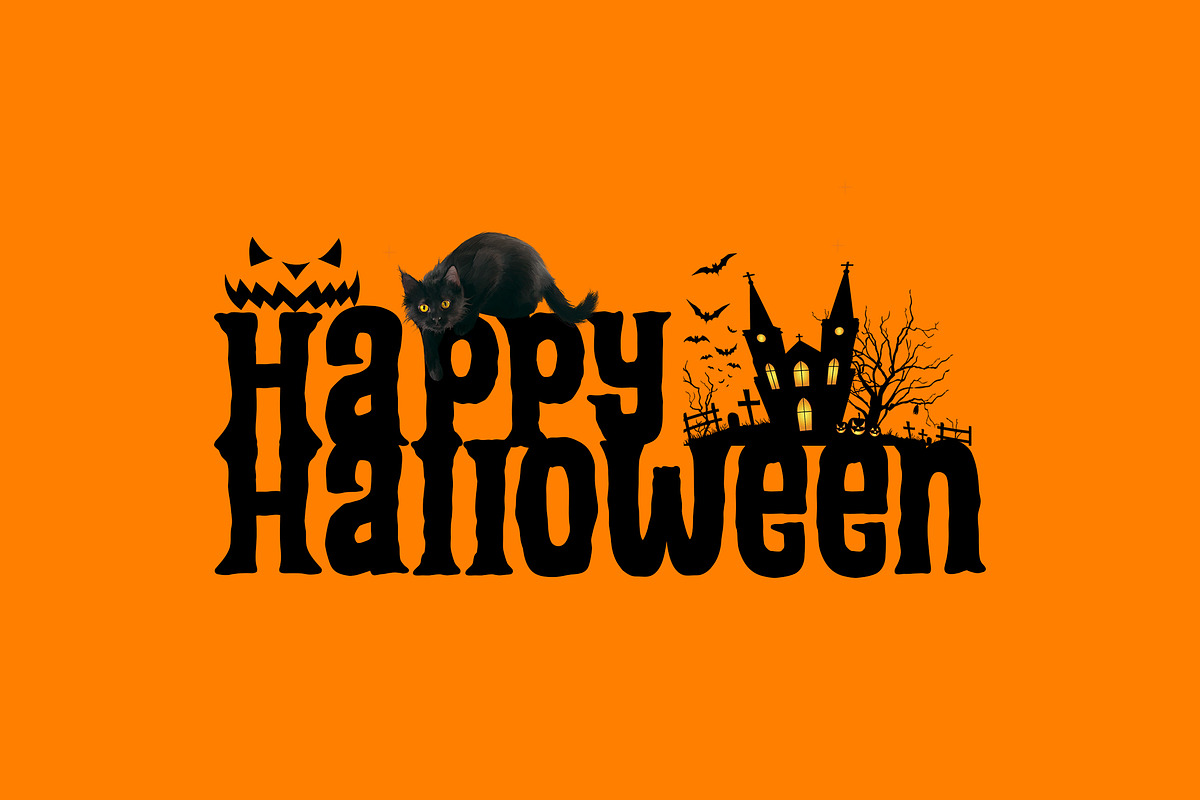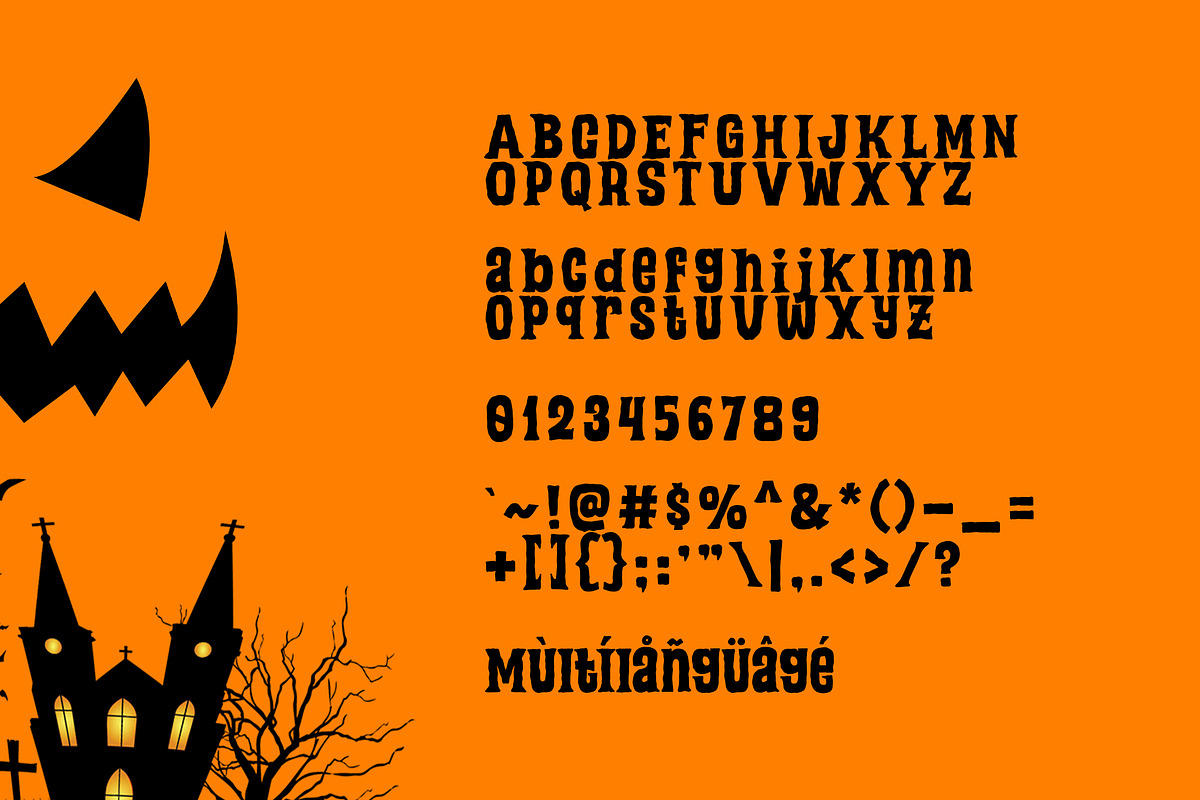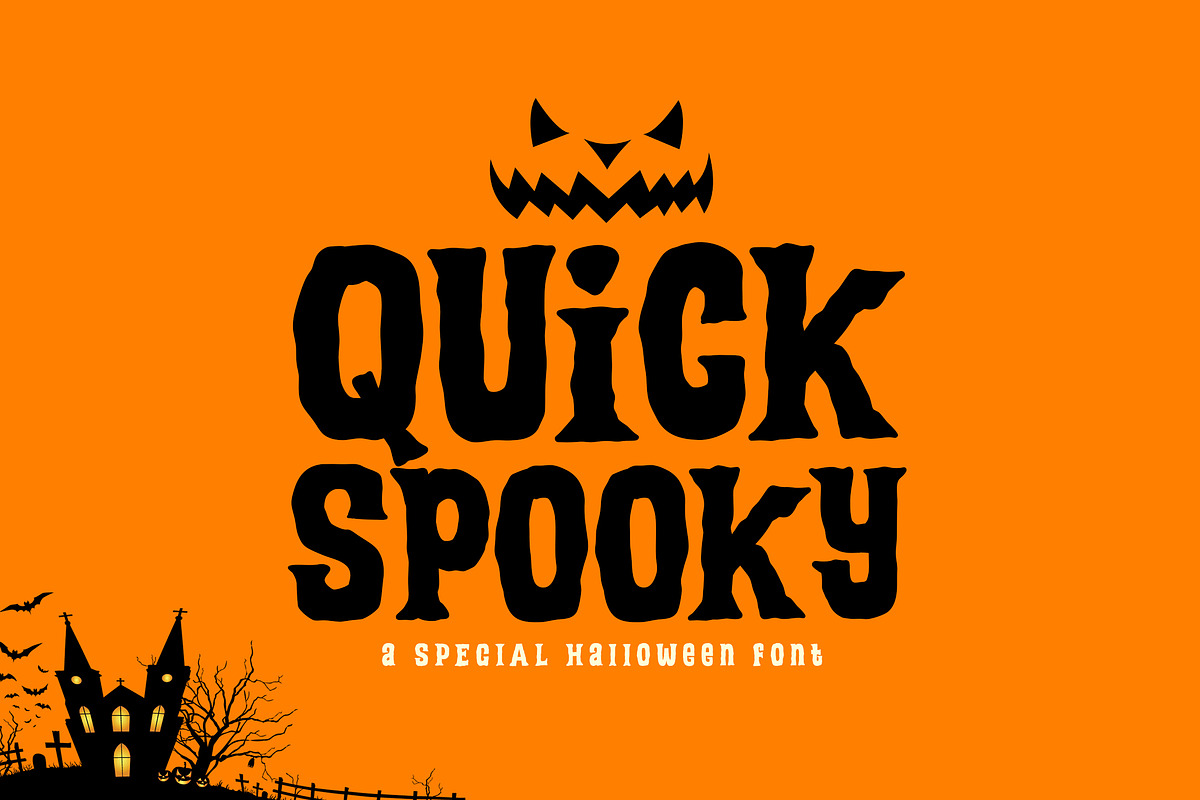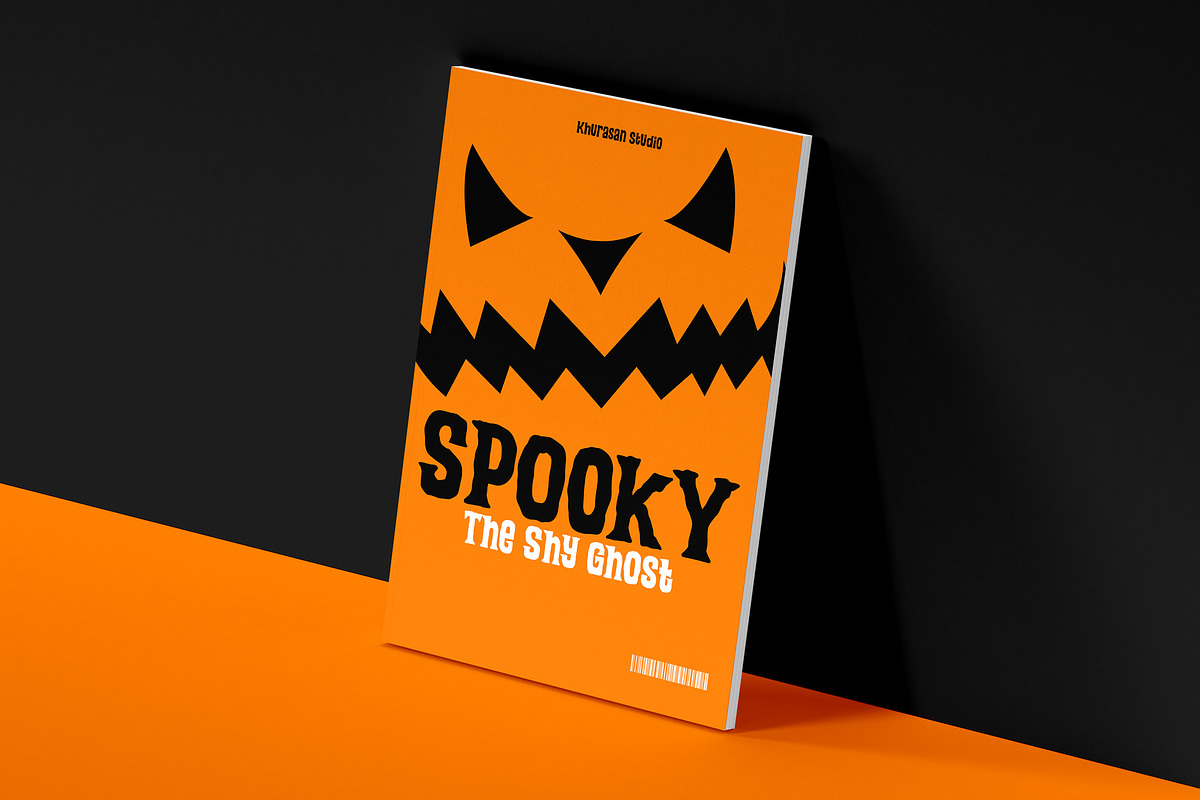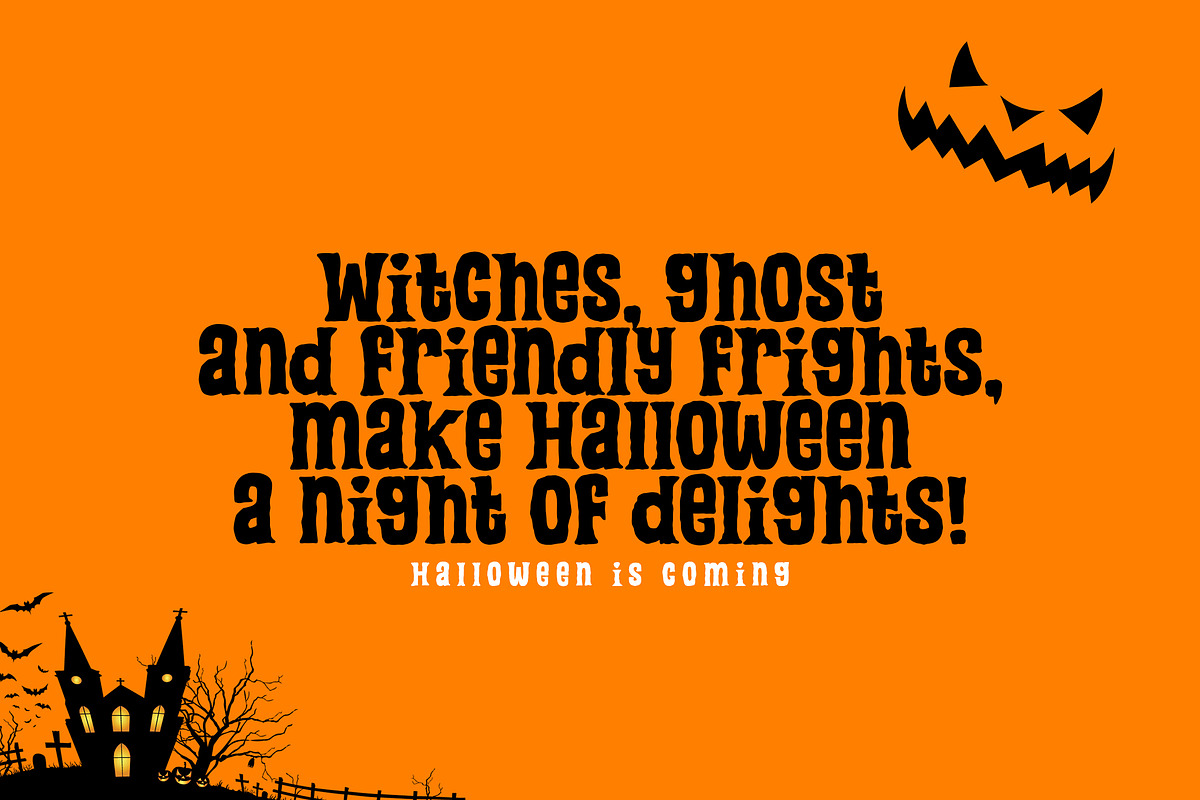
Quick Spooky
Ready to make your Halloween designs more alive, spooky, and stylish? Quick Spooky is a modern horror-themed display font, crafted to bring a mysterious vibe while keeping your design trendy and eye-catching. Quick Spooky combines scary and stylish, making your designs not only terrifying but also unforgettable! Giving you the freedom to create without limits.
Quick Spooky font suitable for logo, branding, greeting card, poster and any design that you create.